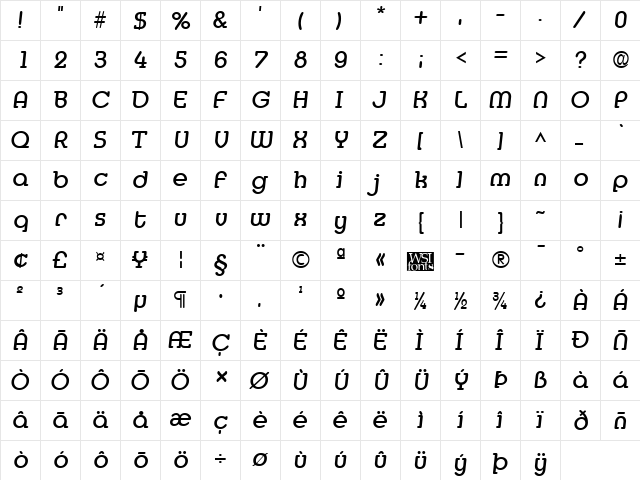
Medfly Bold
Design Context for Medfly Typeface
Medfly is a composed and adaptable typeface that performs quietly and consistently across a wide range of design contexts. The heavy weight commands attention and anchors typographic hierarchies.